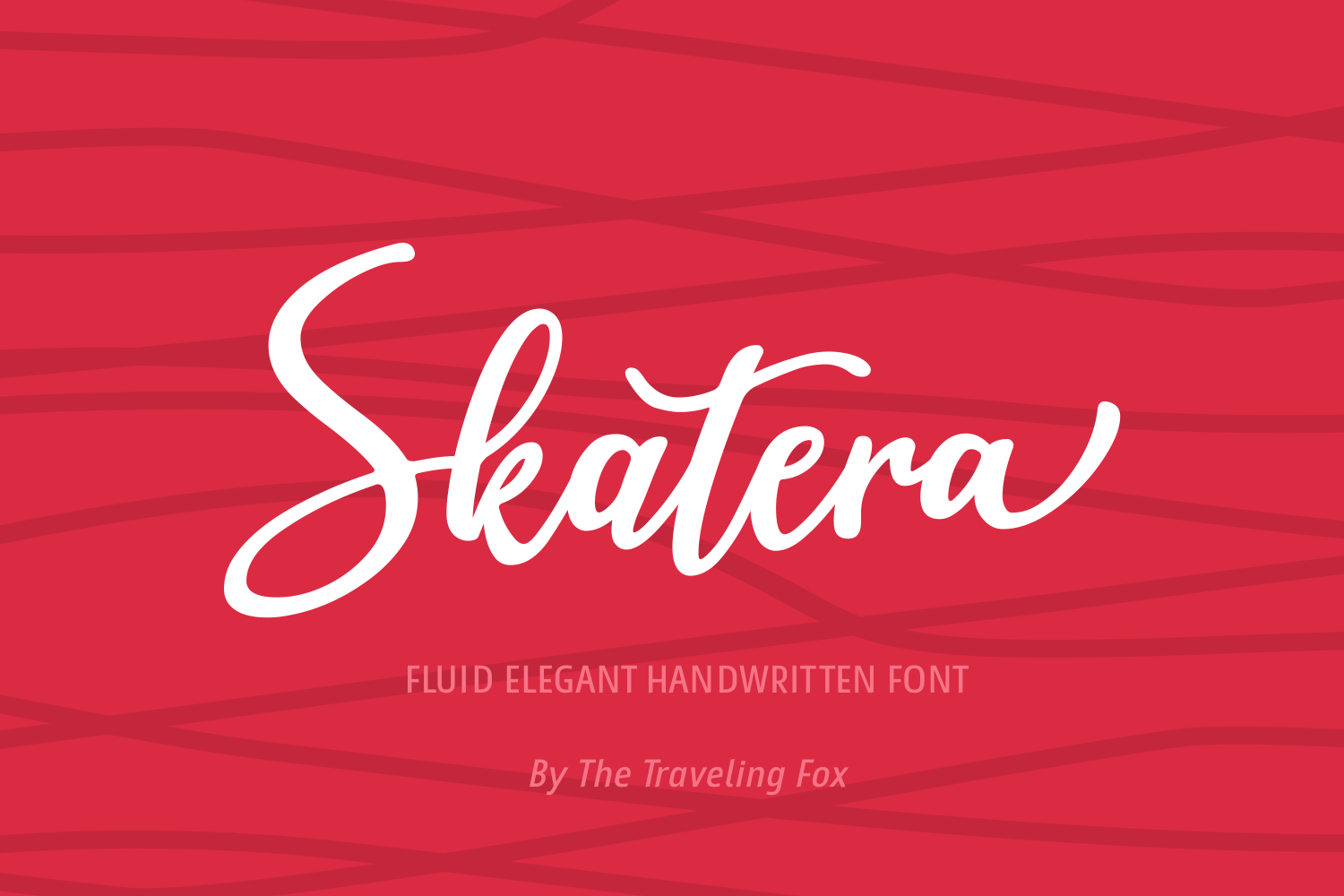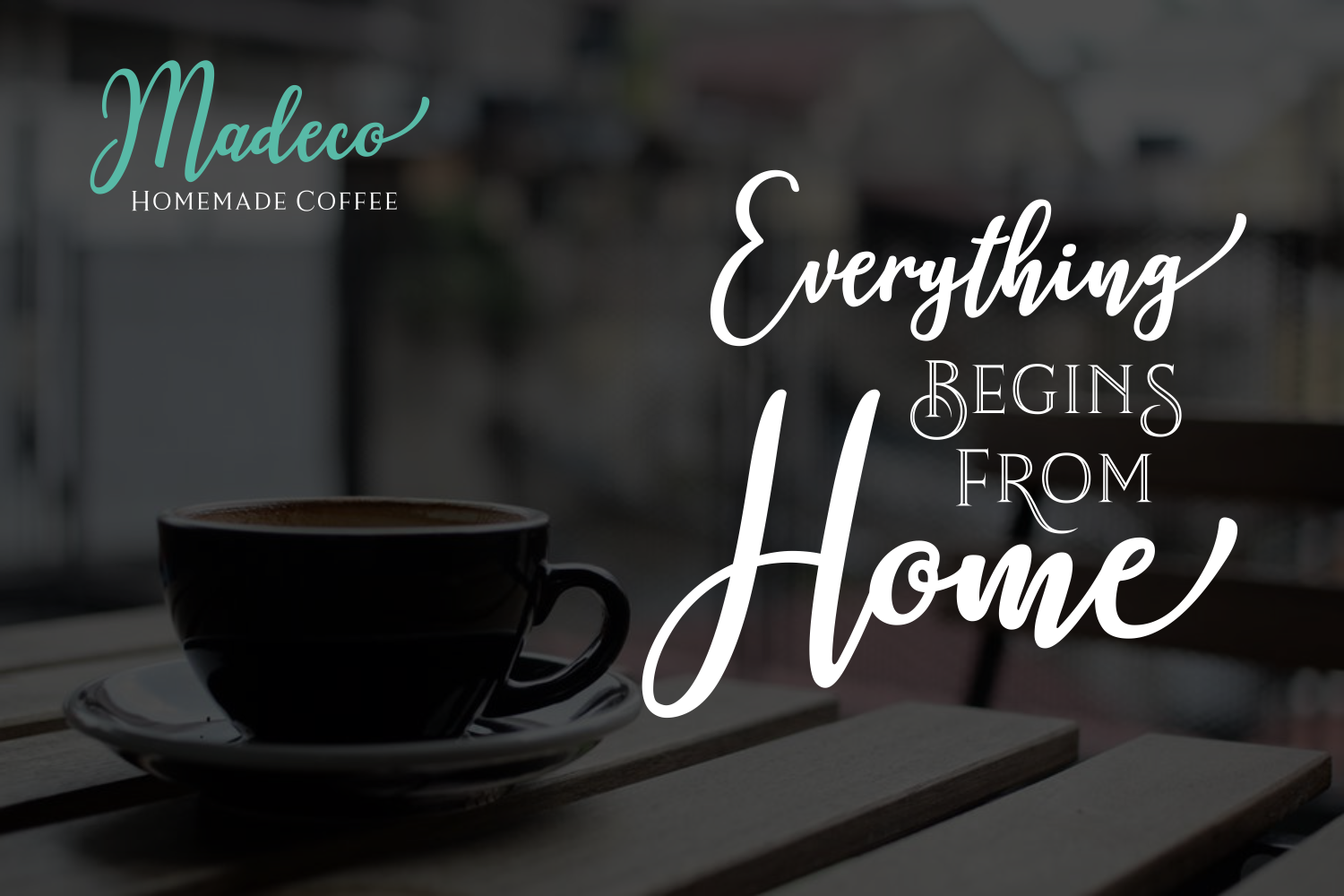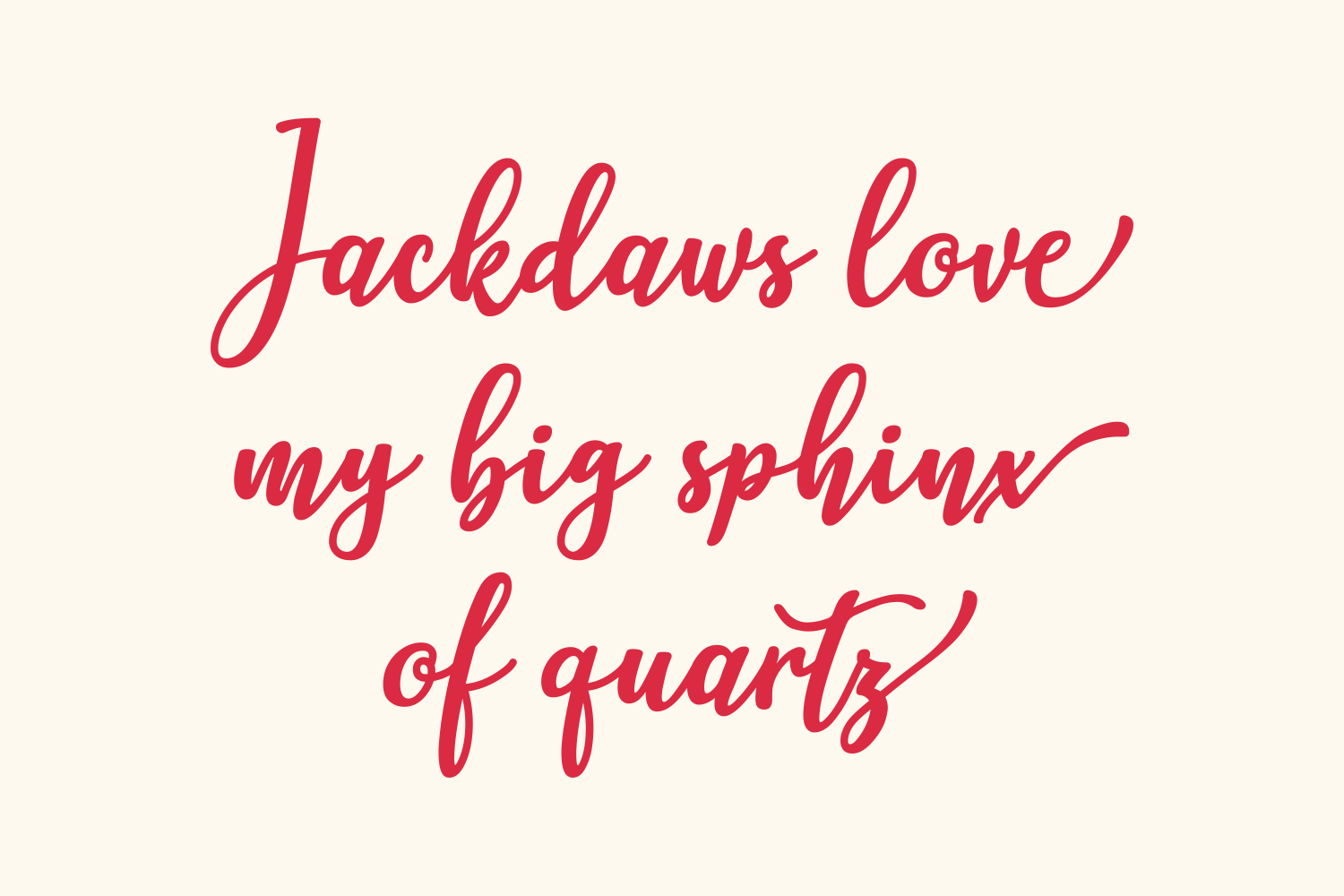
About Skatera Font
Skatera is an elegant and fluid script font, perfect for a large number of projects and designs that need an added element of warmth and sophistication. With an irregular baseline and solid strokes, Skatera is a font you’ll use over and over again.